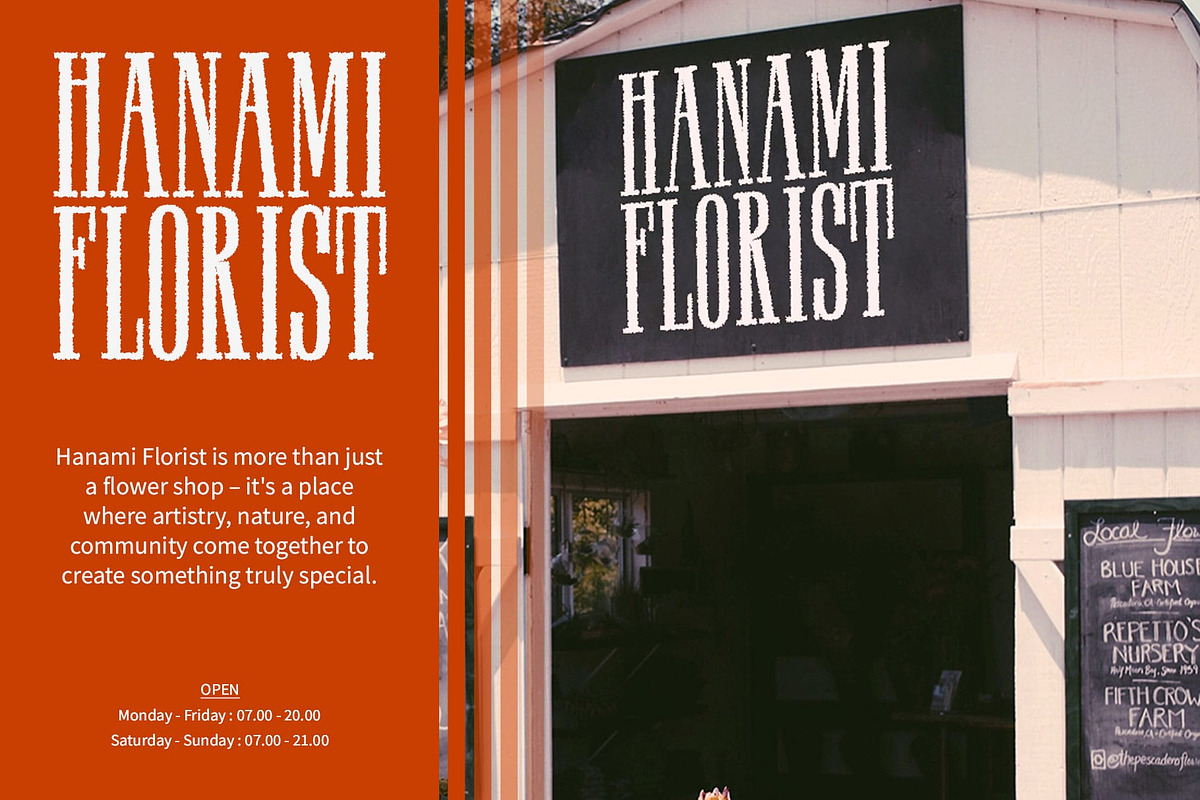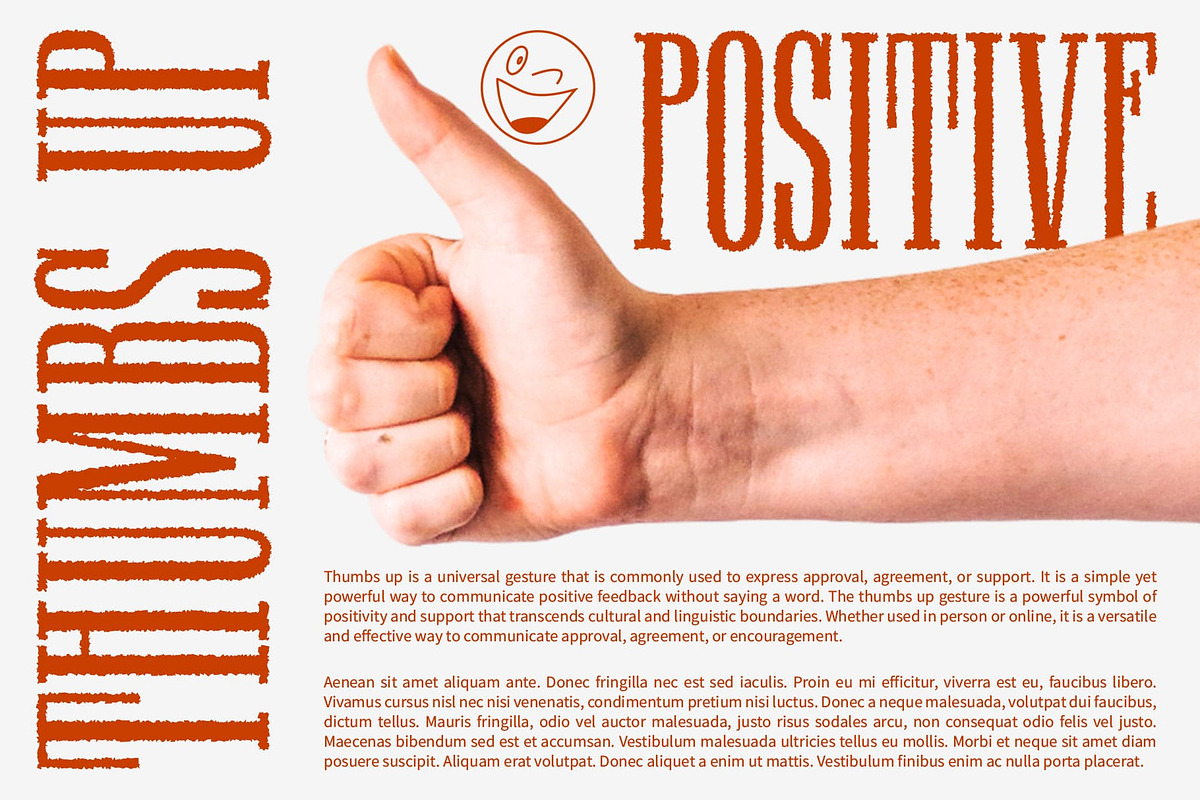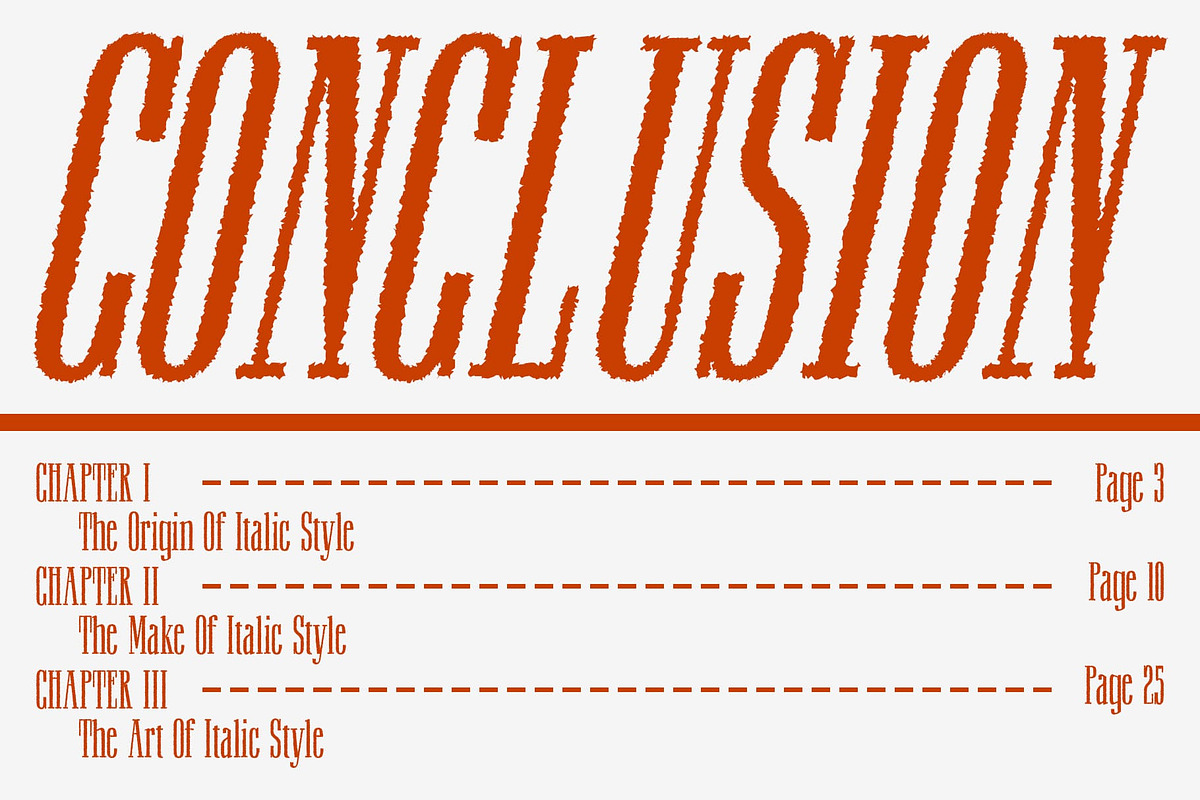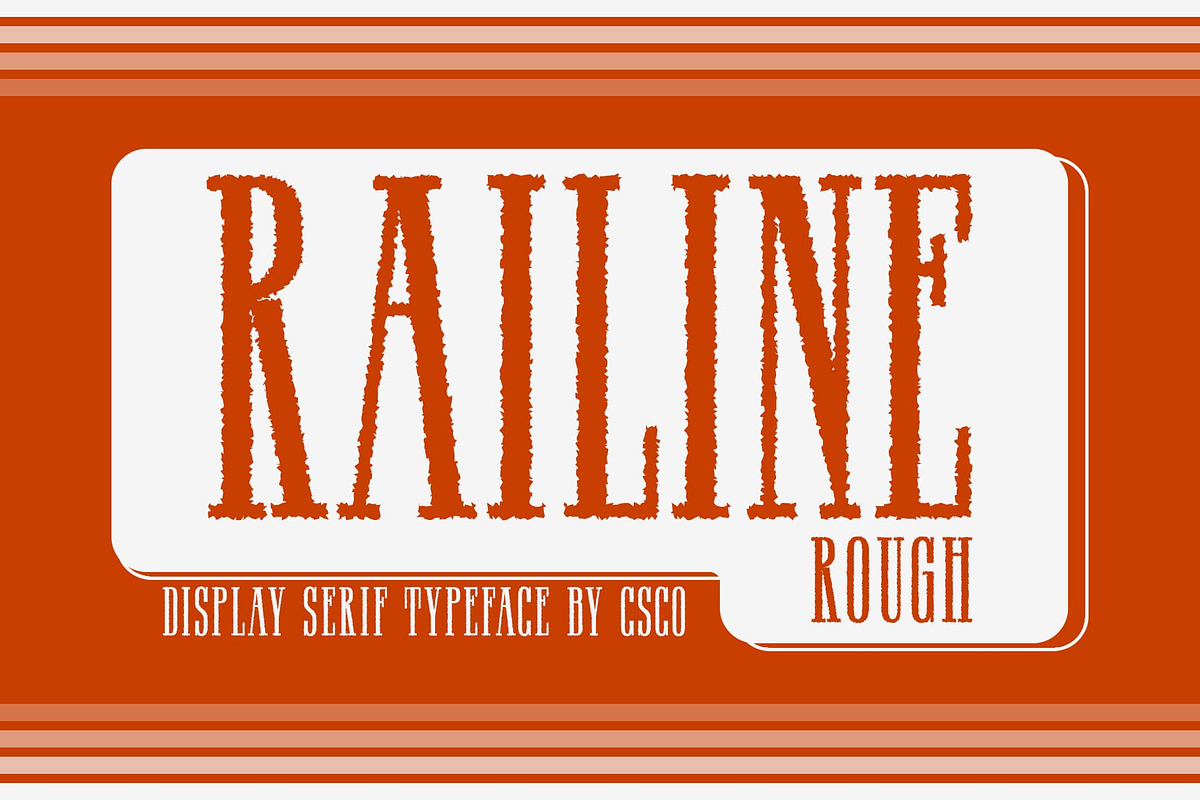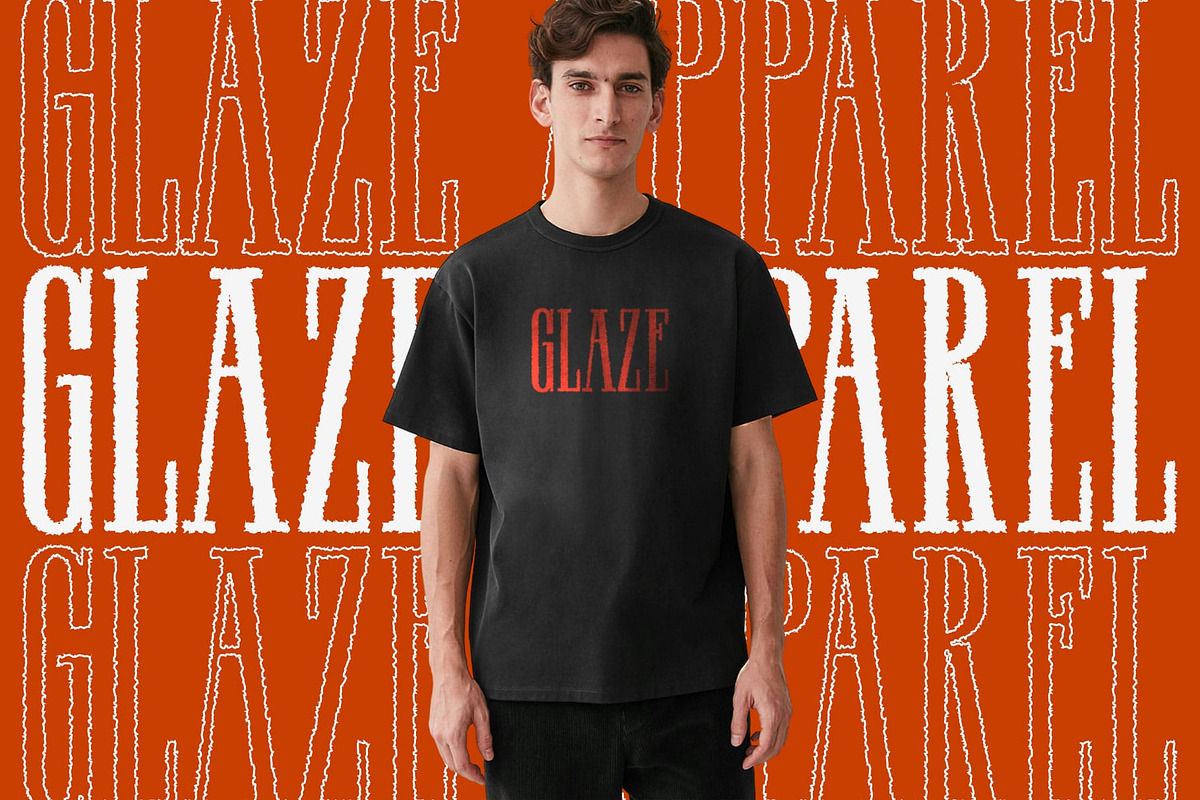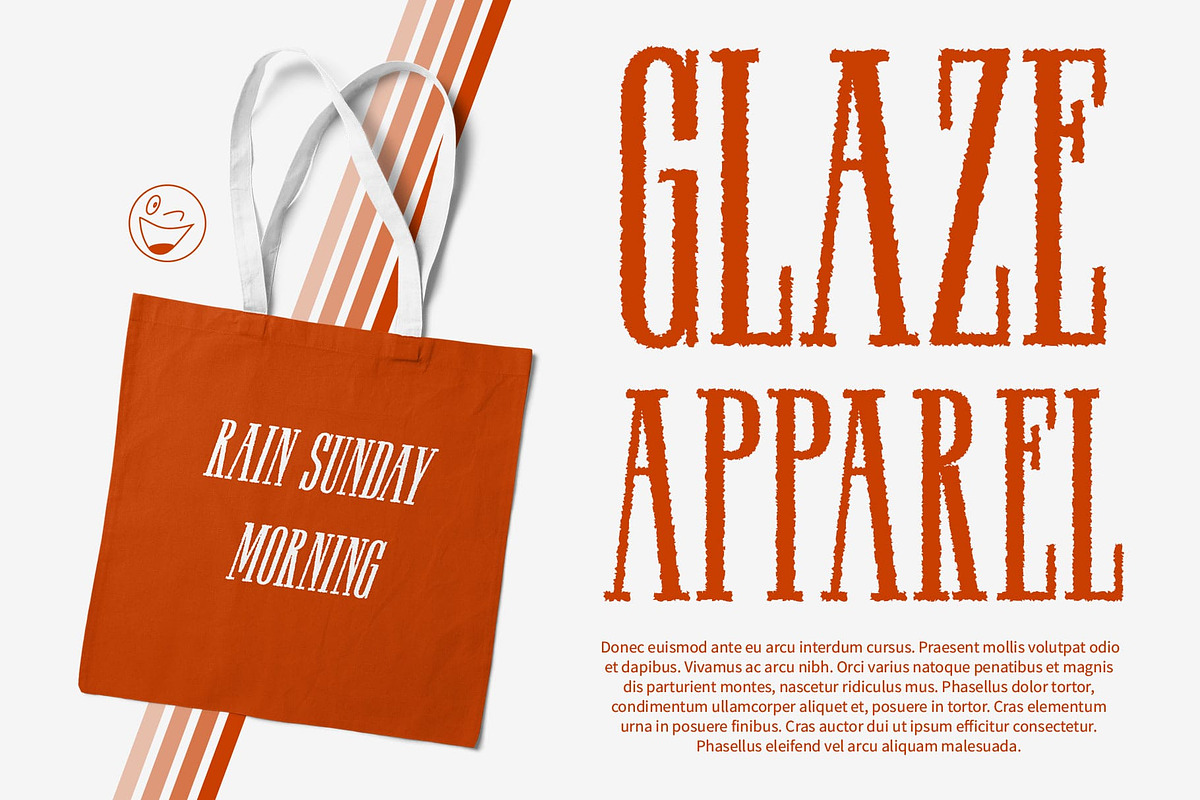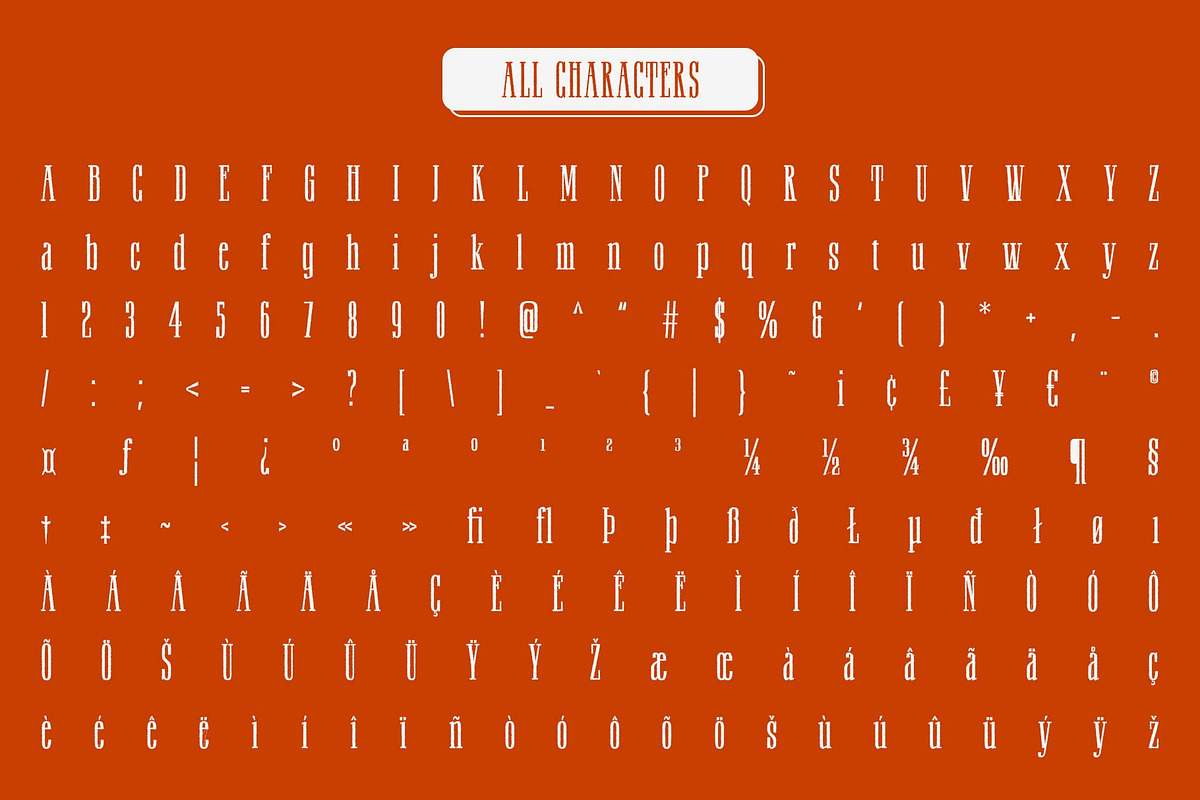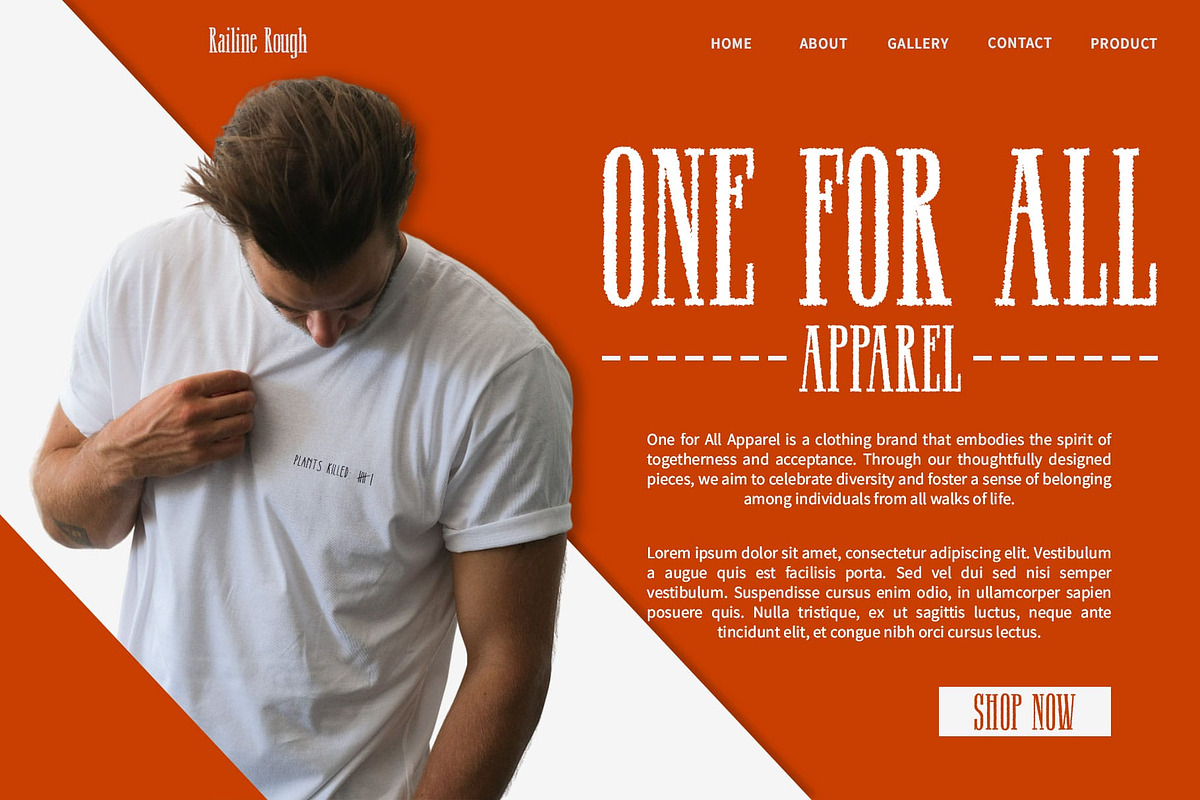
Railine Rough
Railine Rough: Rough Condensed Slab
Rough and Industrial Vibe Railine Rough is a rough condensed slab serif font that exudes an industrial vibe. Its appearance adds a raw and authentic feel to your designs, making it ideal for projects that require a bold and impactful statement.
Captivating Displays Designed to be eye-catching, Railine Rough is perfect for headlines, banners, and other display purposes. Its condensed form allows for maximum impact, ensuring that your message is seen and remembered.
Ideal for Bold Statements Railine Rough is ideal for projects that require a font with a rough and industrial feel. Whether you’re designing posters, logos, or packaging, this font is sure to make a bold statement and leave a lasting impression on your audience.
Versatile and Impactful Despite its rough vibe, Railine Rough is versatile and impactful. Its condensed slab serif design makes it suitable for a wide range of projects a strong and rugged font is need to convey a message with authority.